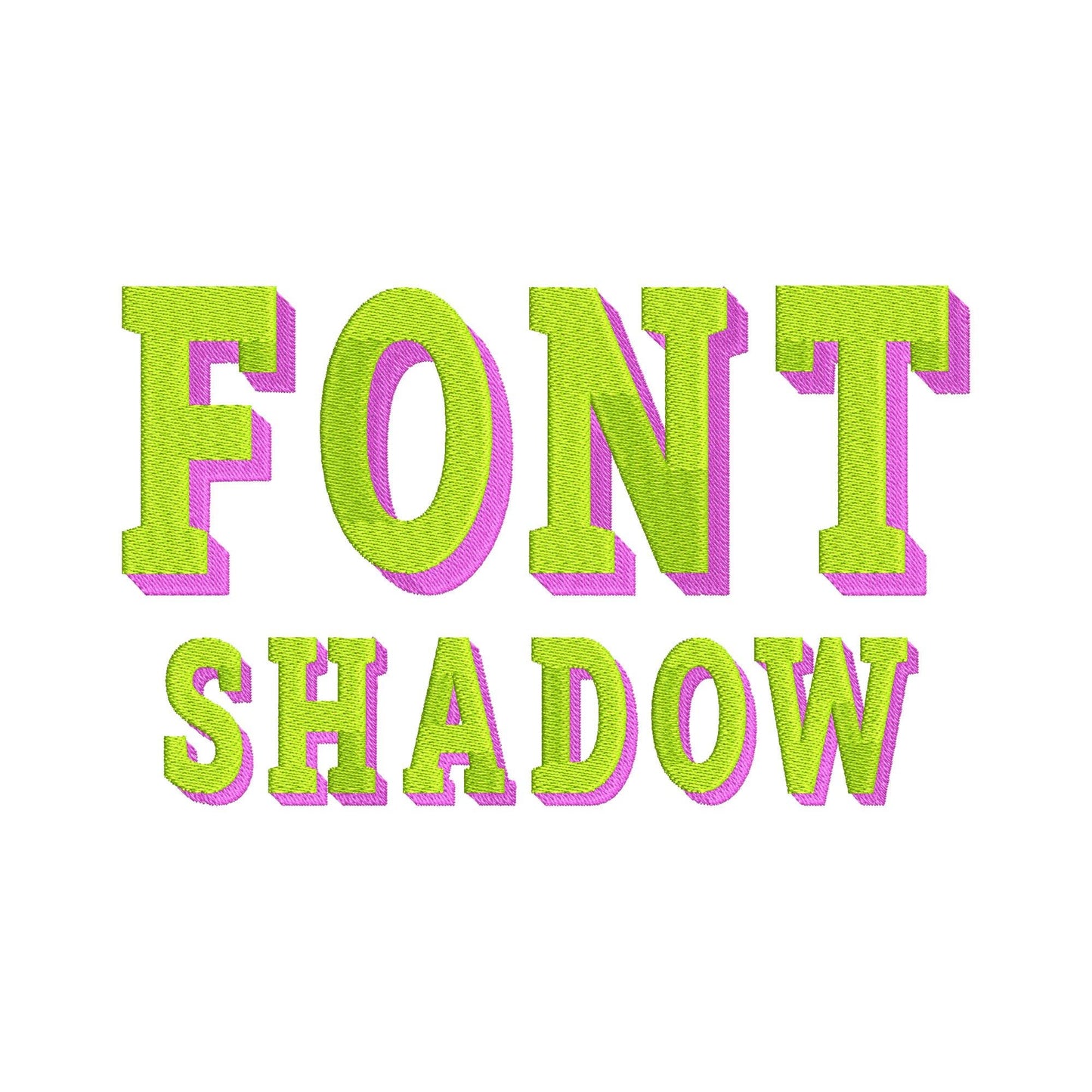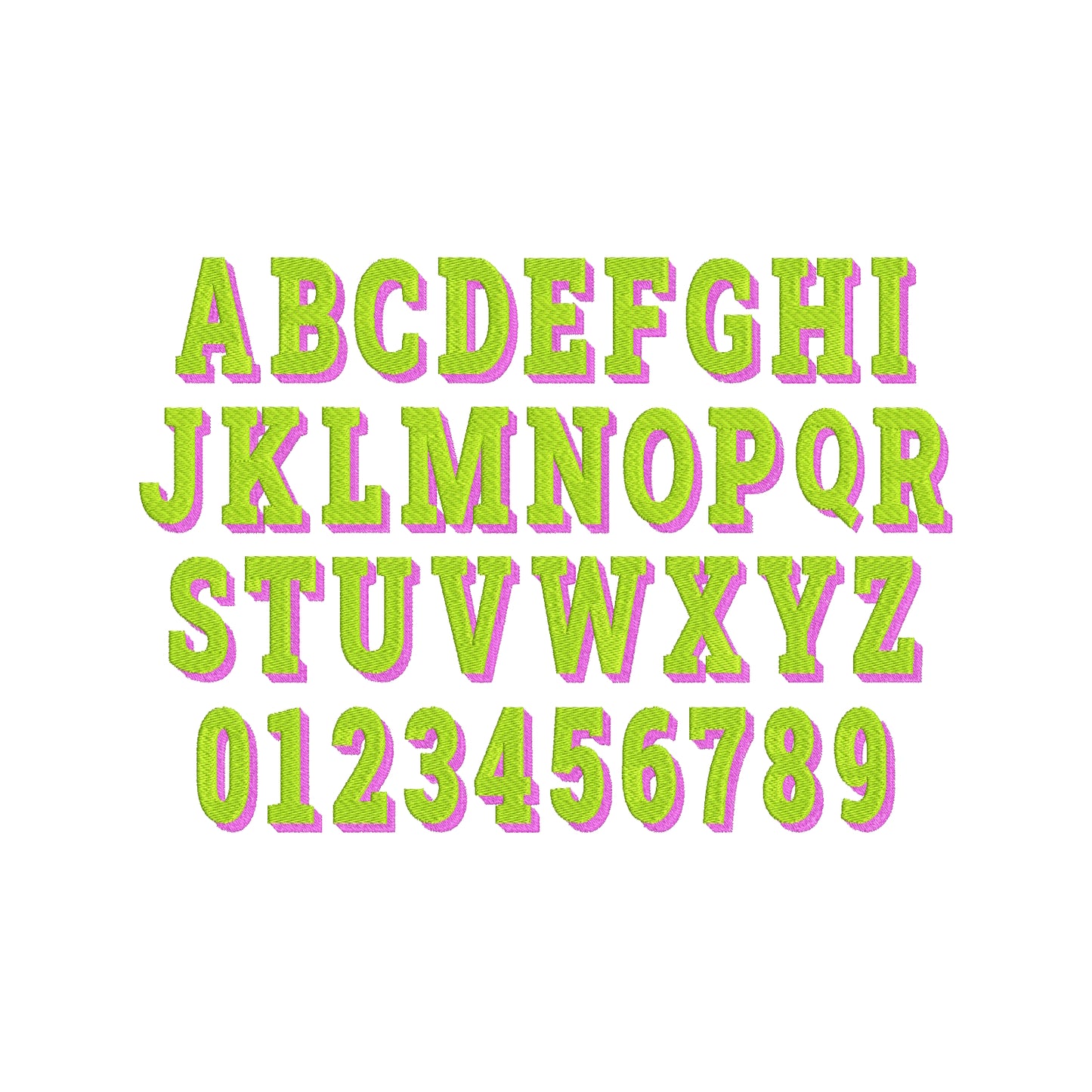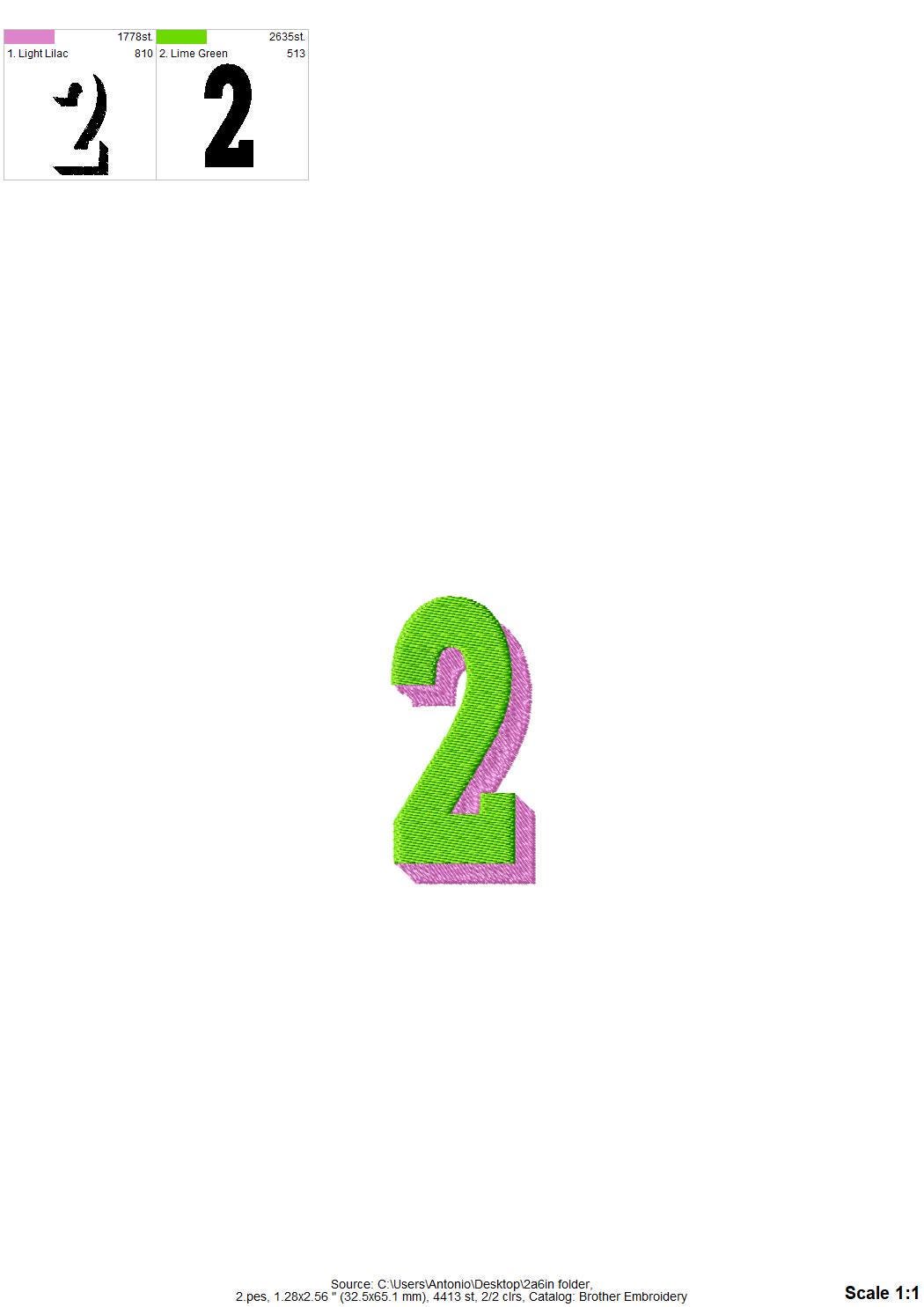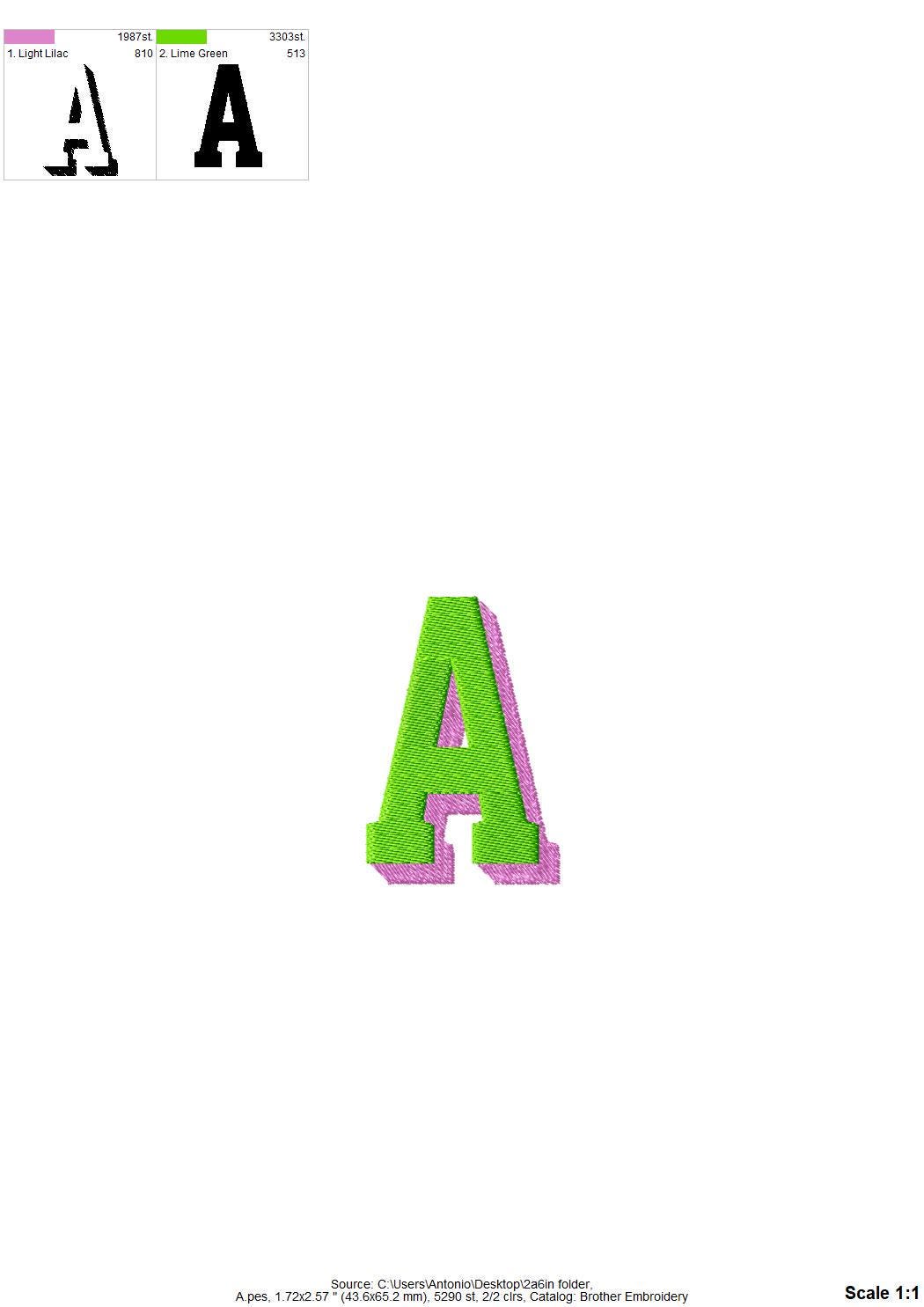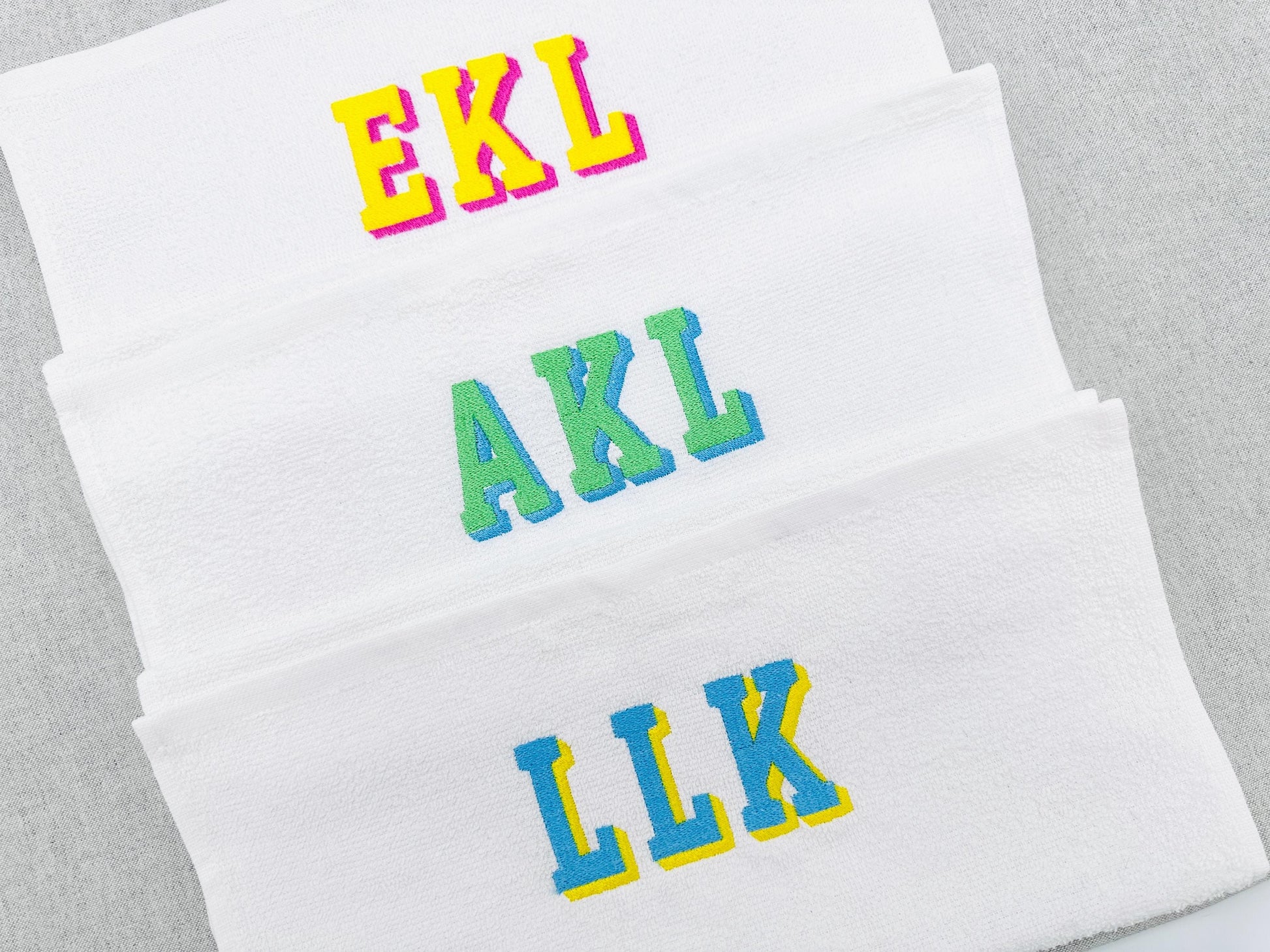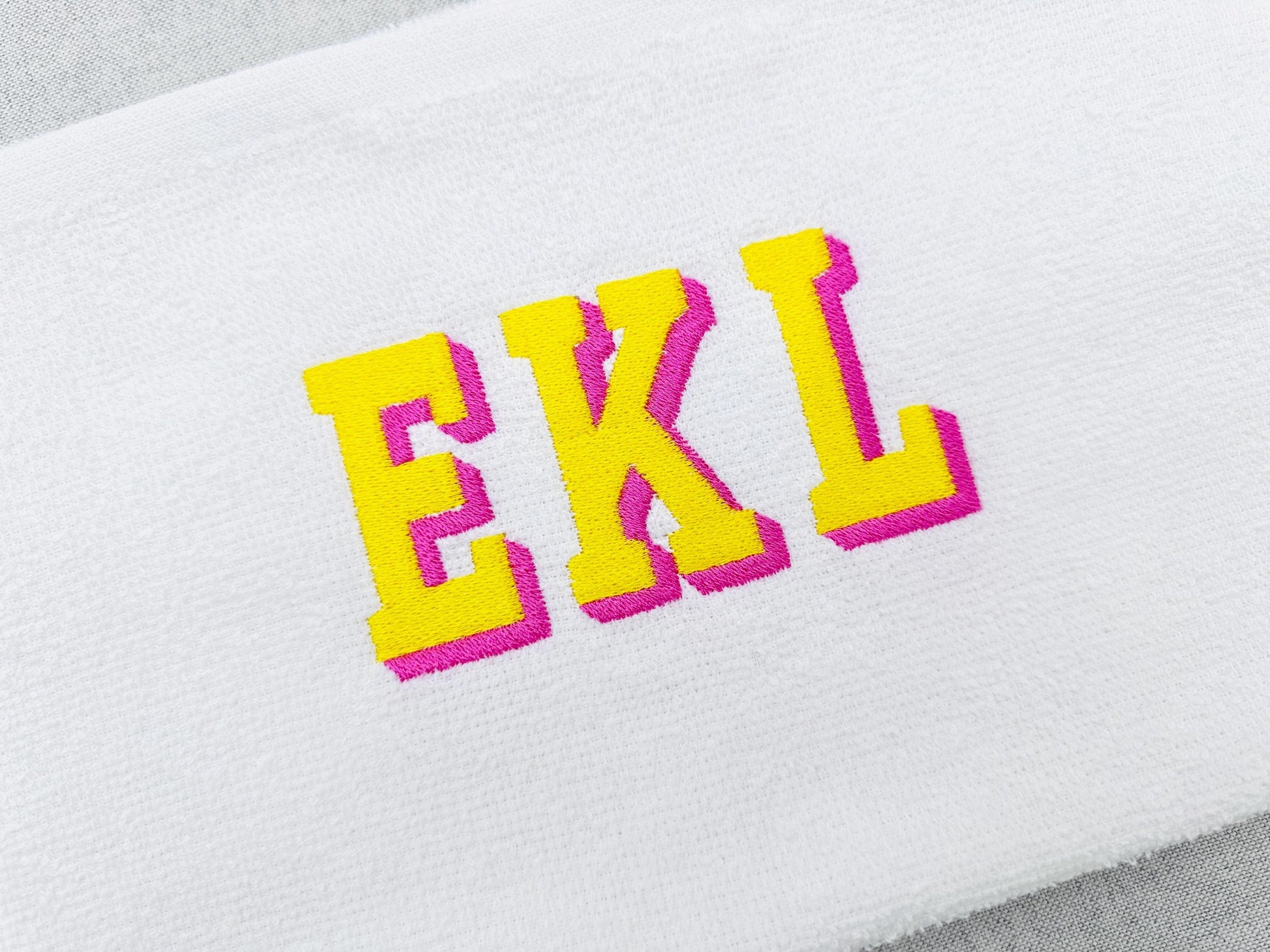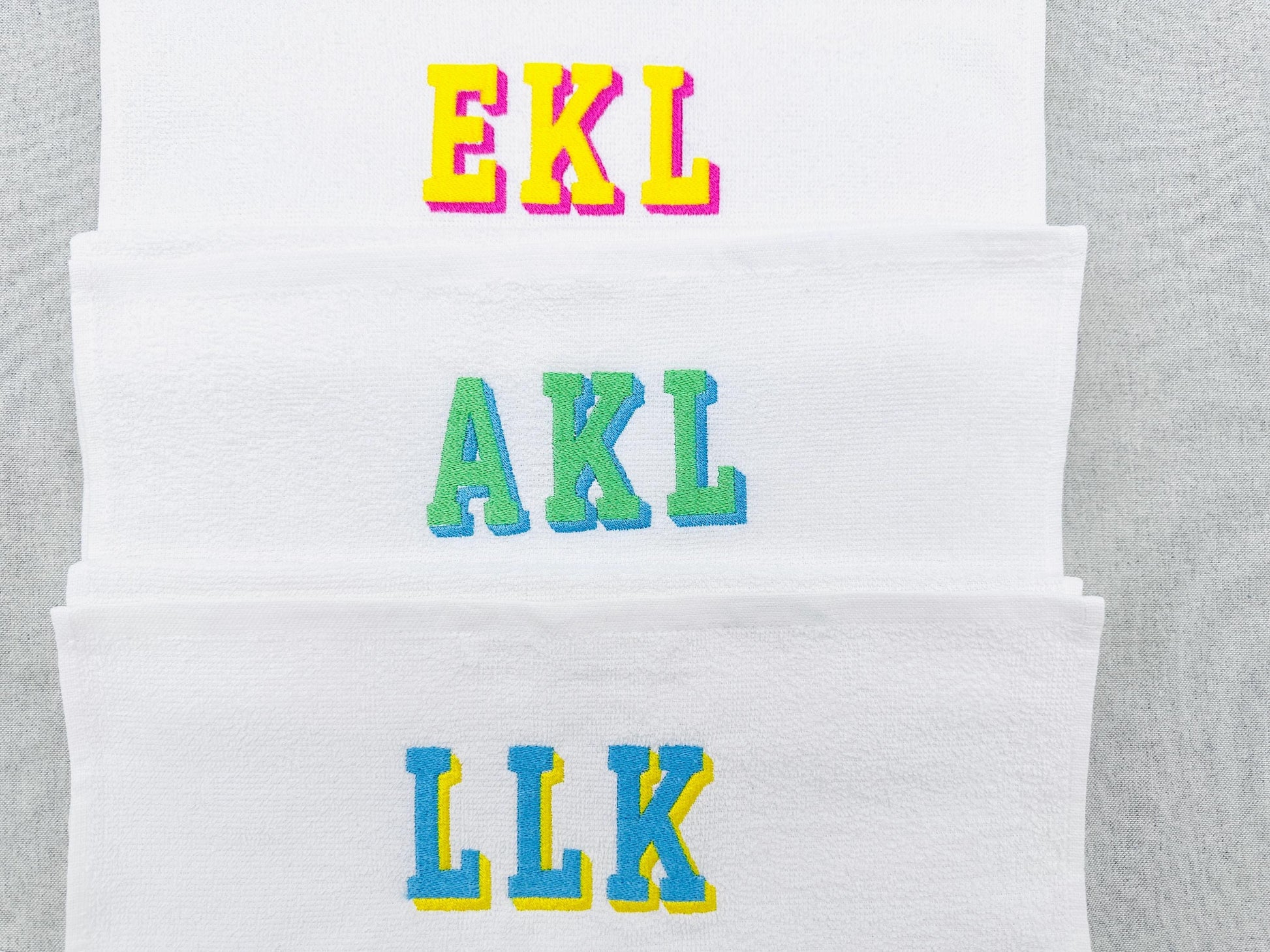
Slab Shadow Block Font
Or click to open the linkA slab block font with a shadow, in fill stitch. Bold for names, monograms and team shirts.
Slab-style block letters in fill stitch with a shadow, 3 inches tall. Includes uppercase letters A to Z and numbers 0 to 9.
- Slab shadow block font, fill stitch
- Uppercase A to Z, numbers 0 to 9
- One size, 3 in